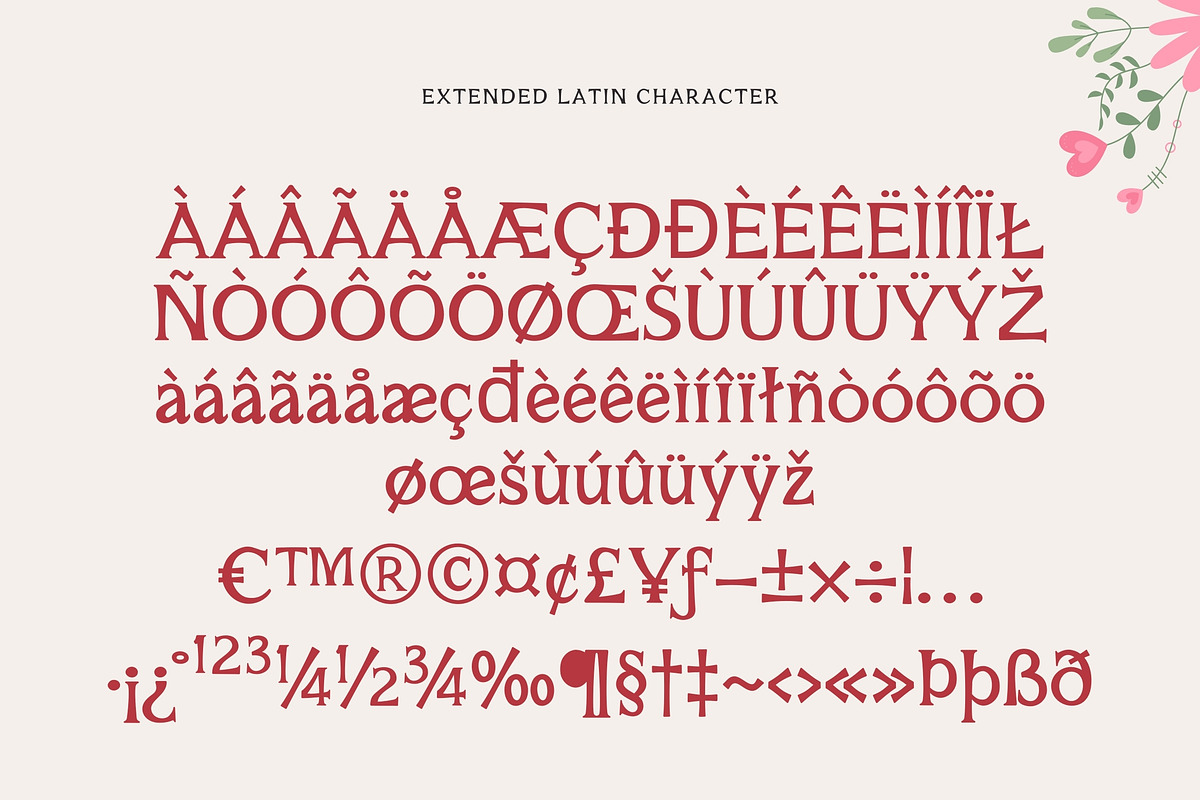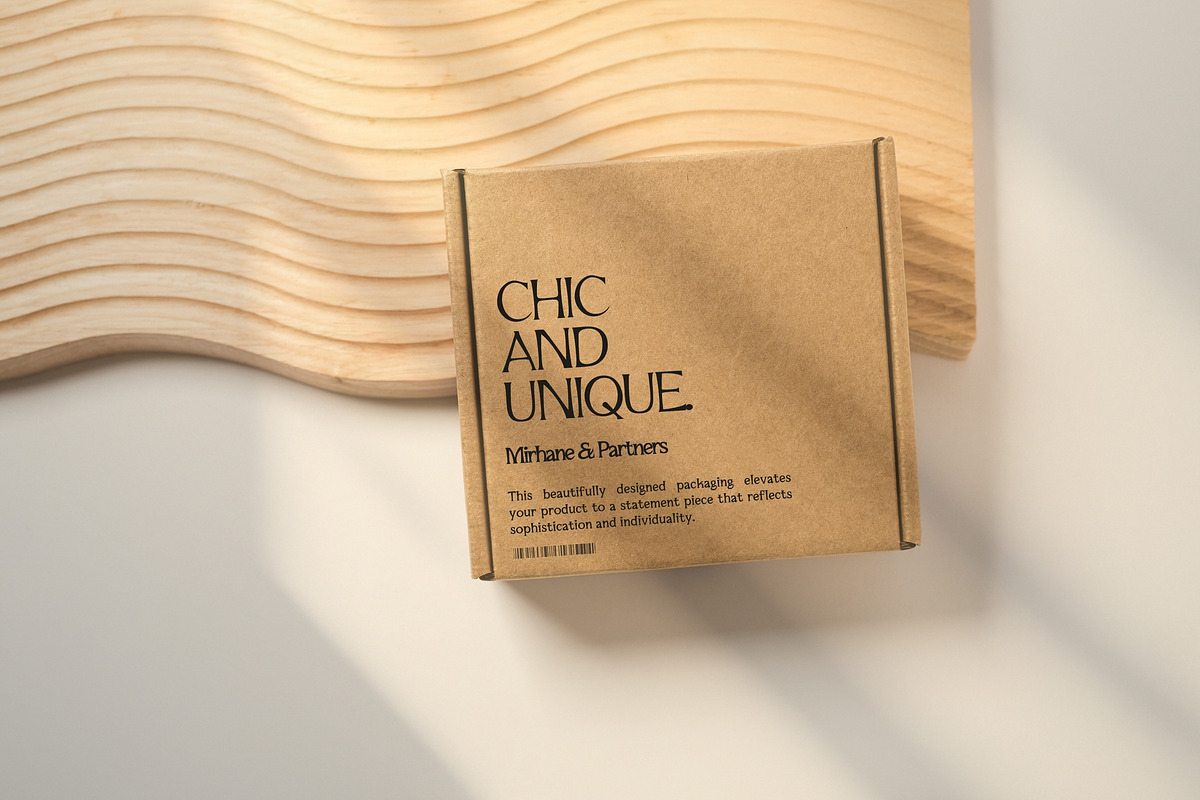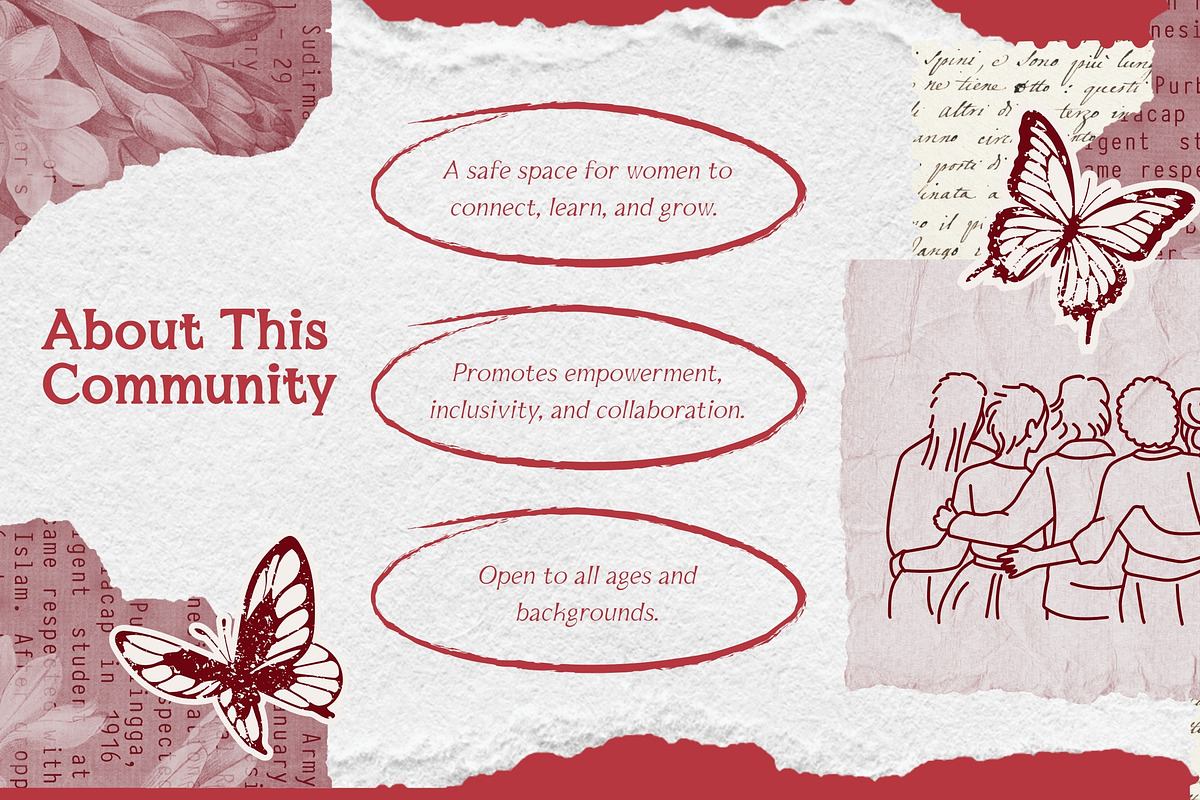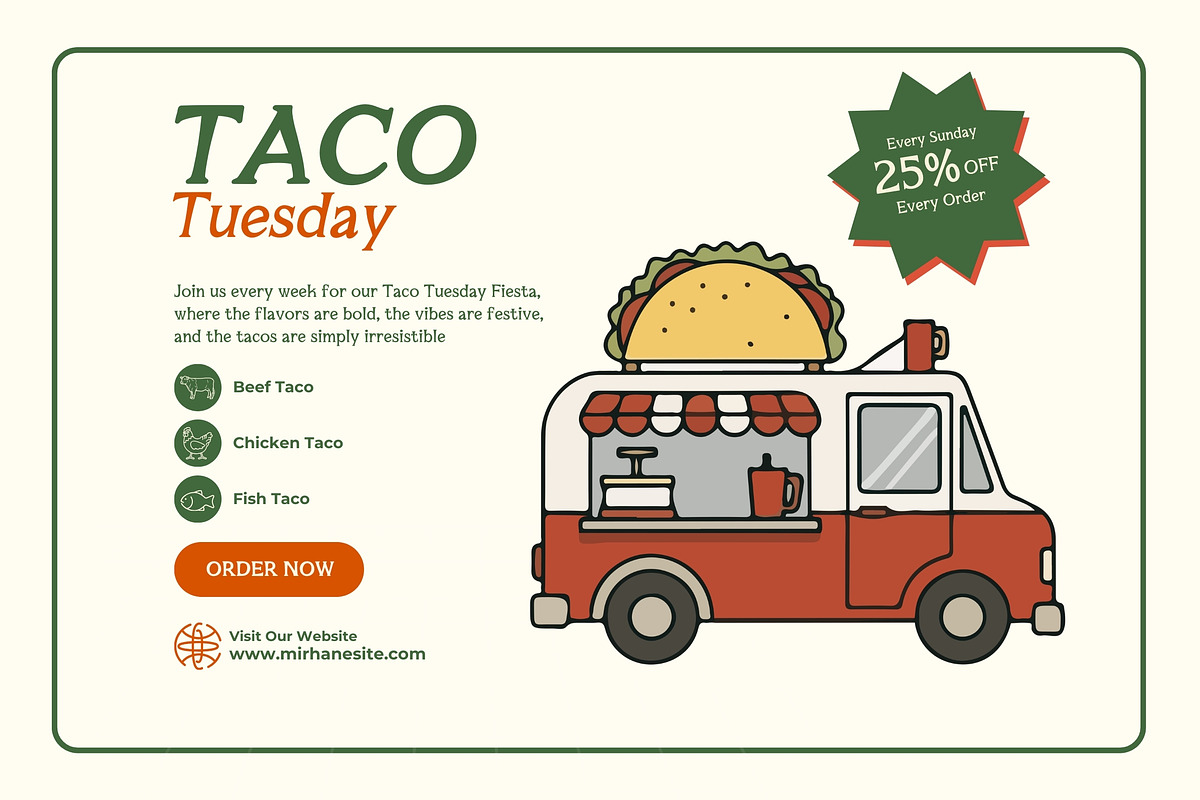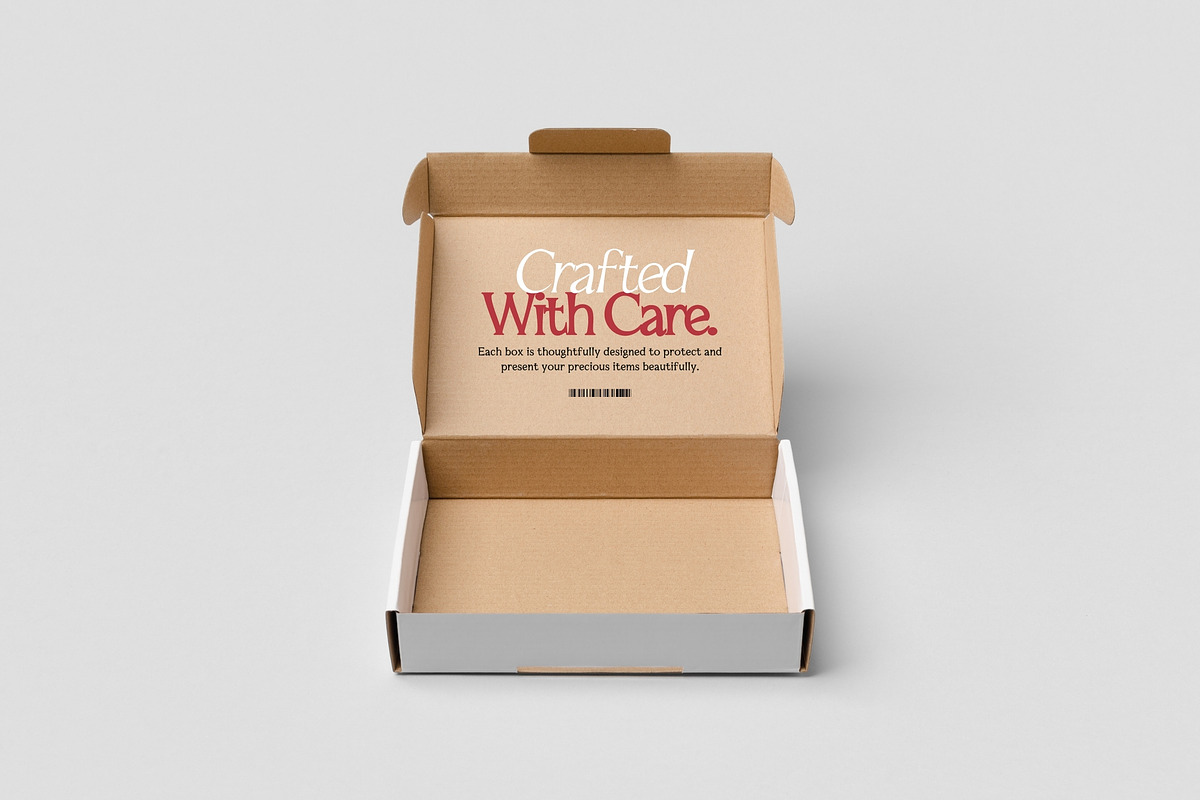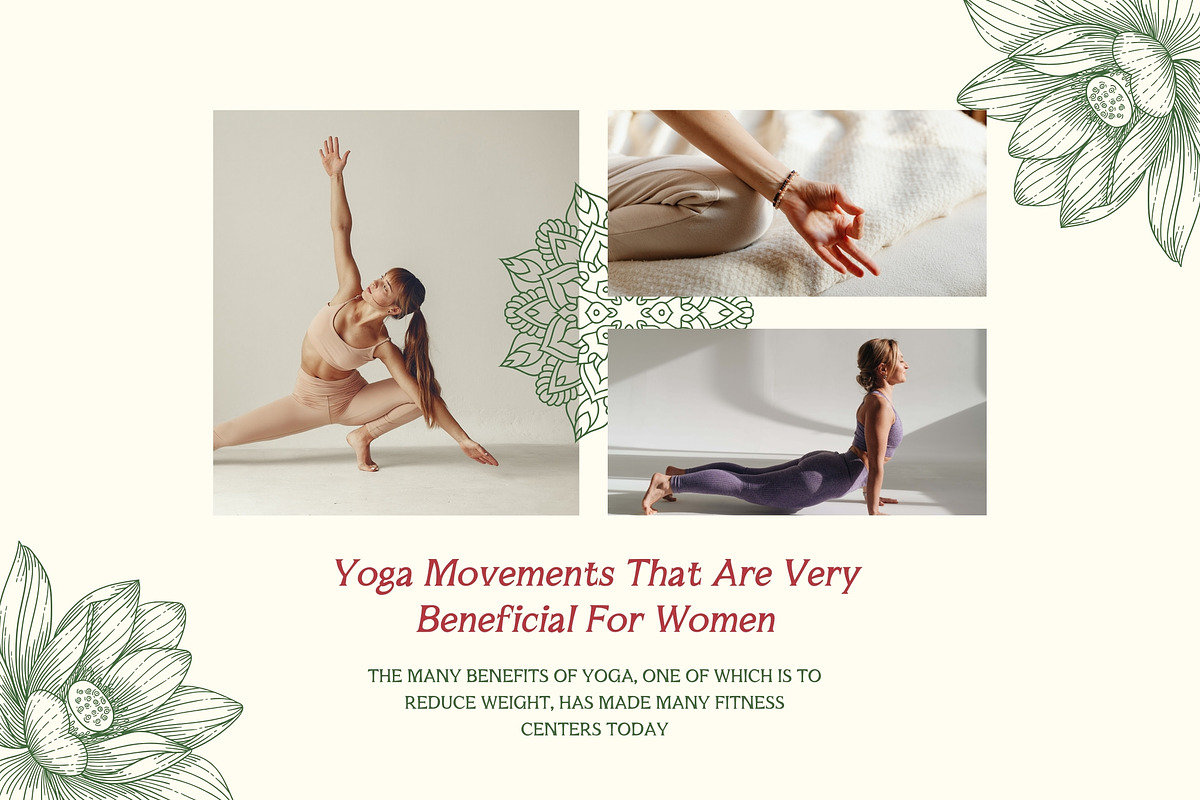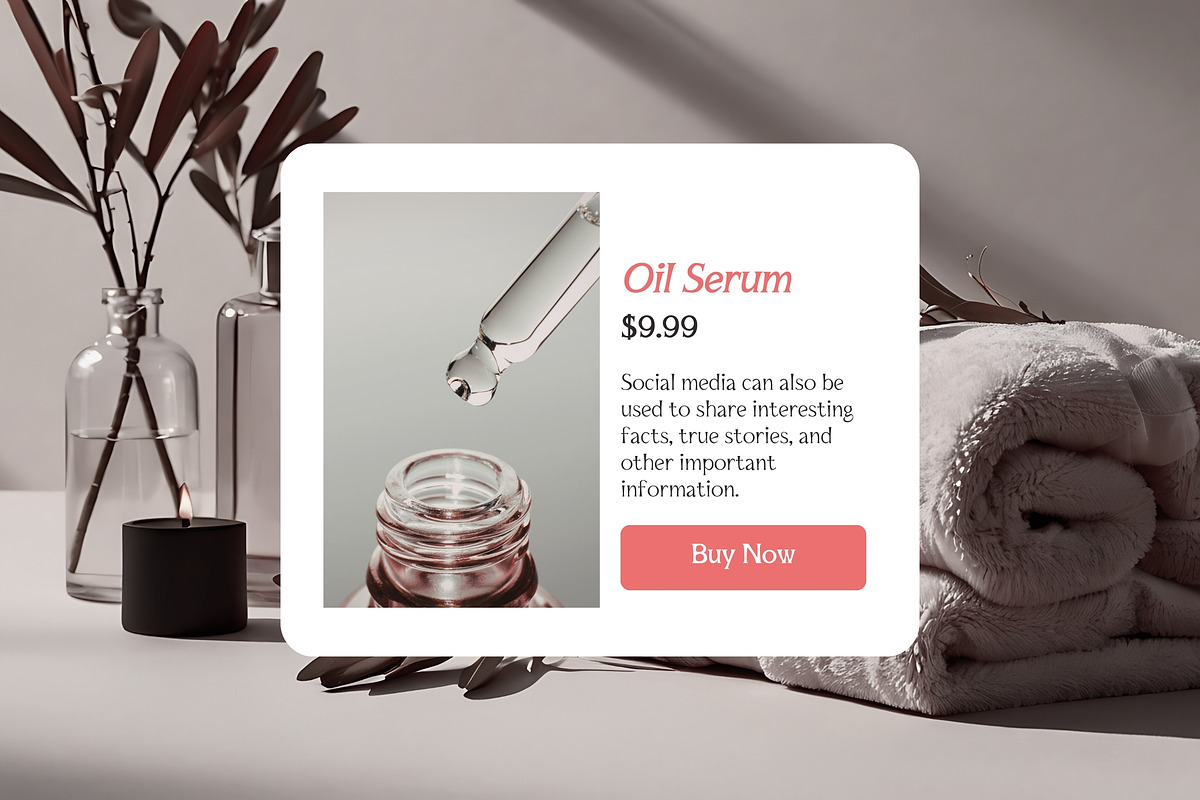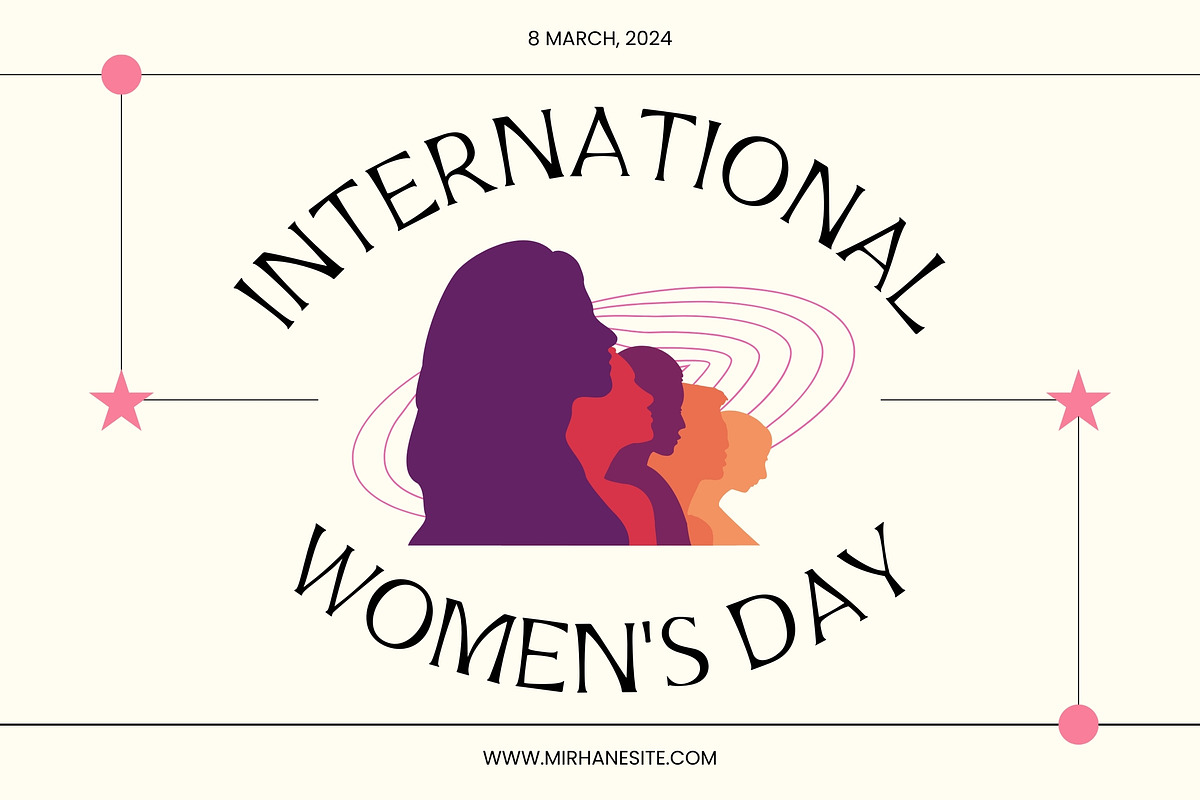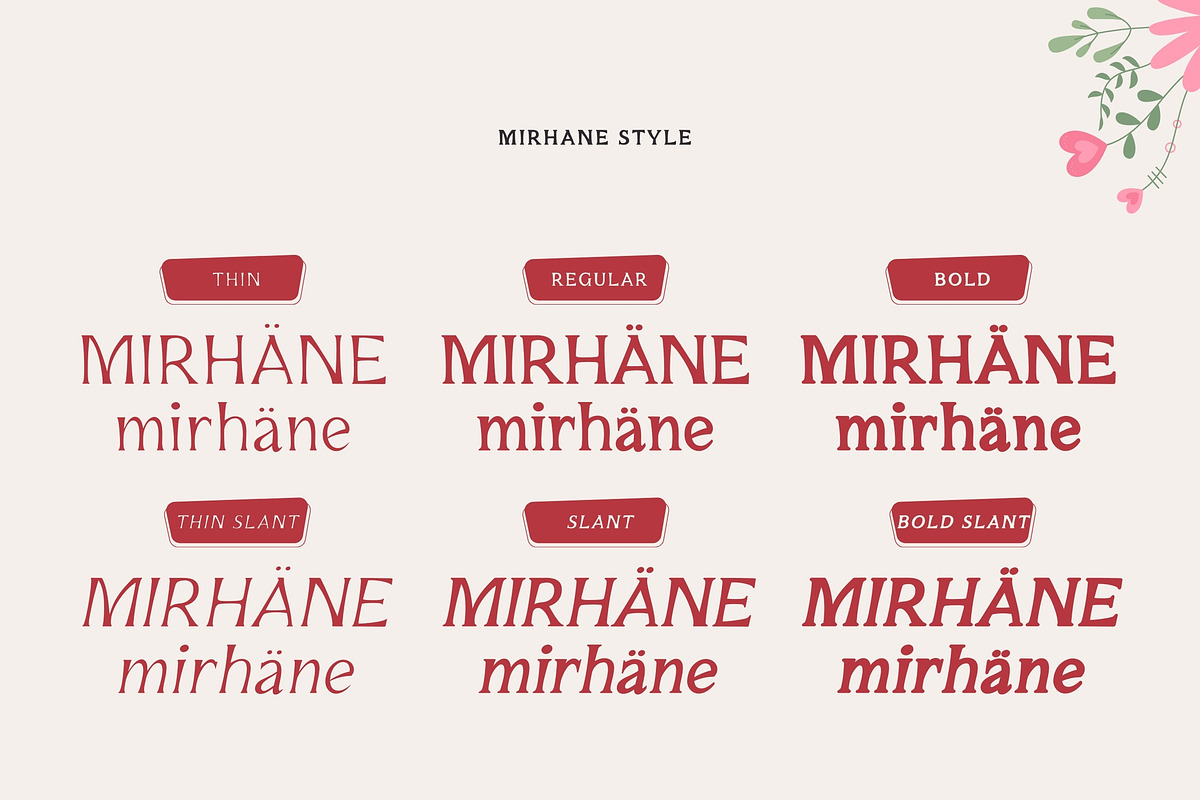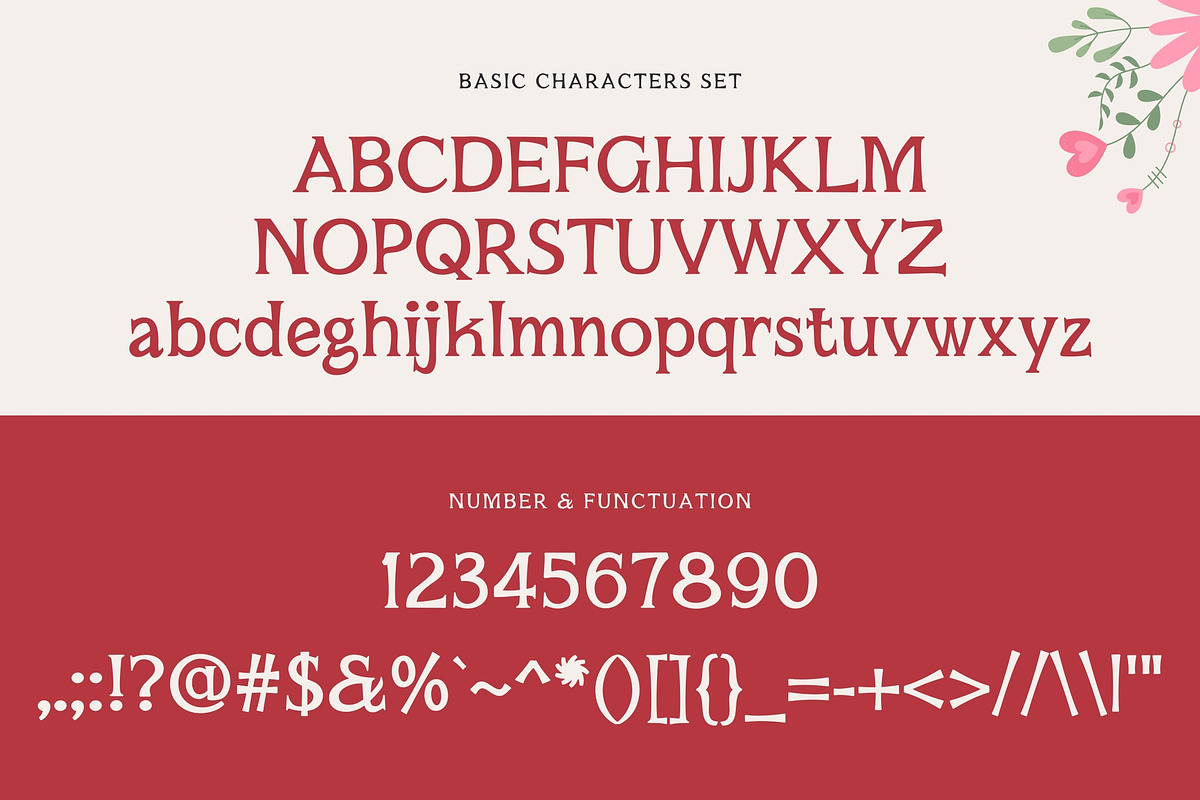
Mirhane - Modern Serif Typeface
Introducing Mirhane
Mirhane - Modern Serif Typeface
Mirhane is a modern serif typeface that combines elegance with a fresh contemporary touch. It features smooth curves, balanced proportions, and refined serif details that create a stylish yet highly readable look.
This typeface works beautifully for branding, logos, editorial design, wedding invitations, fashion projects, packaging, social media graphics, and website headlines. Mirhane is designed to bring a modern sophistication to your typography.
Mirhane comes in 3 weights:
- Thin
- Bold
Each weight includes Regular and Slant styles, giving you flexibility to create both clean compositions and more dynamic layouts.